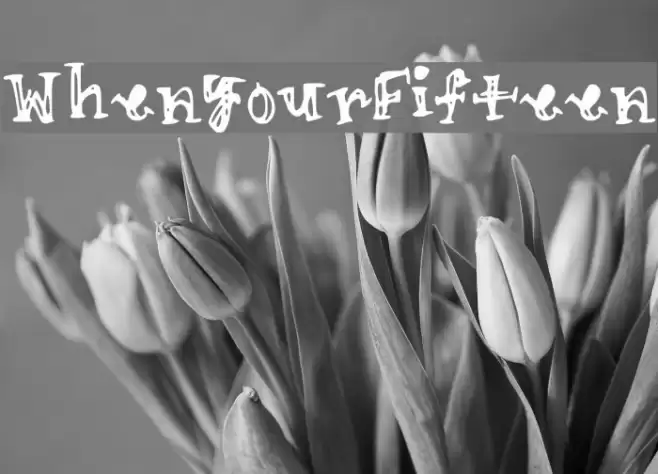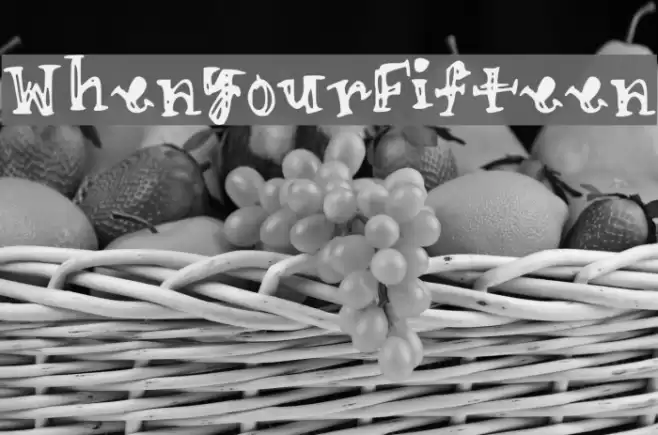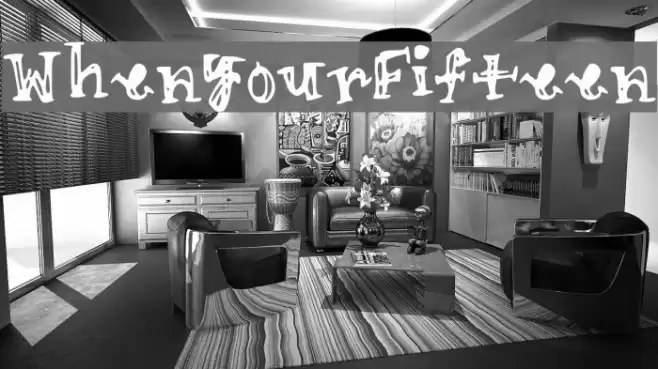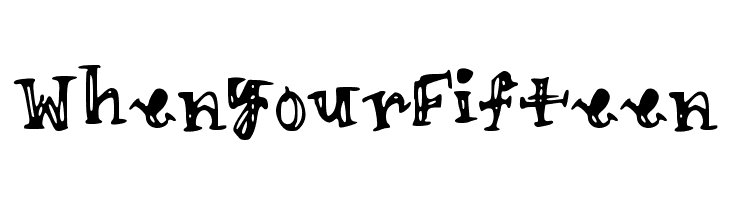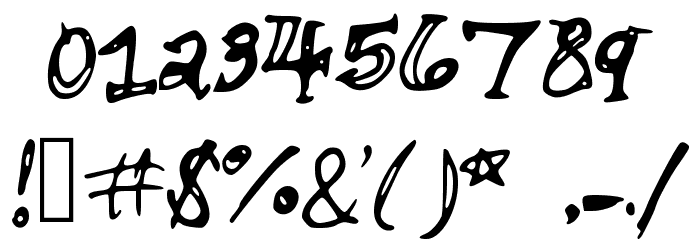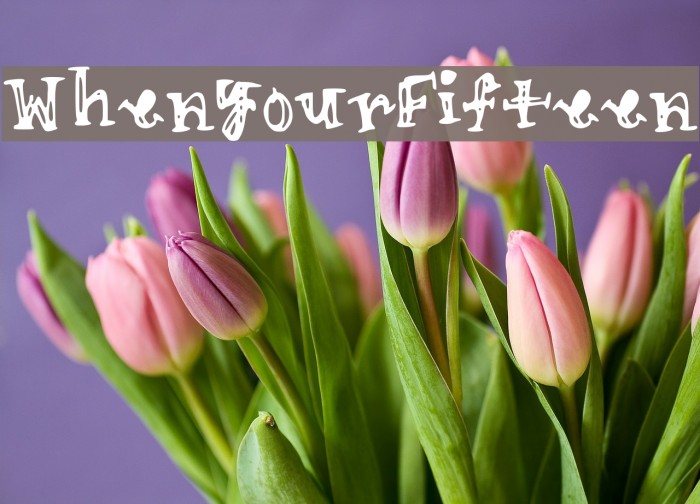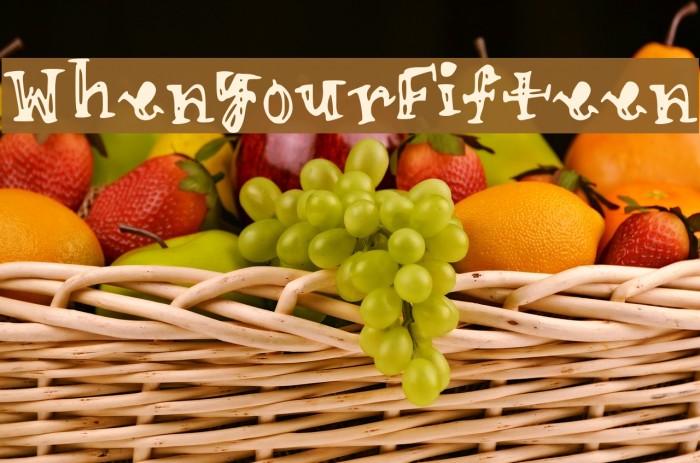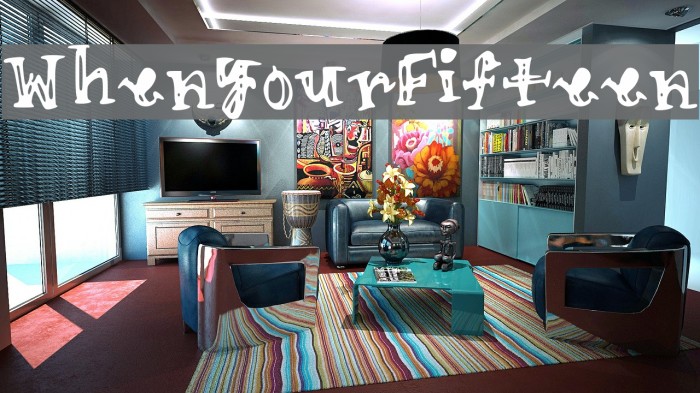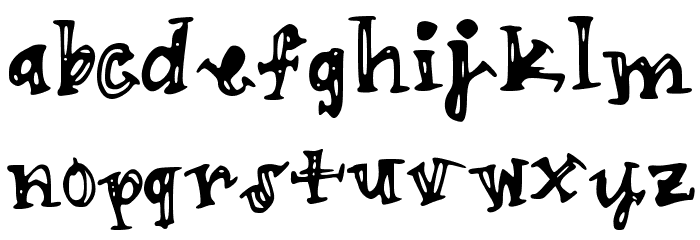
WhenYourFifteen Font
WhenYourFifteen Description
This font features a playful and whimsical design, characterized by irregular and quirky letterforms that give it a hand-drawn appearance. The uppercase letters are bold and dynamic, with varying stroke thicknesses and unique decorative elements, such as dots and curves, that add to its charm. The lowercase letters maintain this playful style, with some letters featuring exaggerated loops and swirls. The numbers are equally distinctive, with a bold presence and creative flair. Special characters are designed to match the overall aesthetic, ensuring a cohesive look. This font is ideal for projects that require a fun and informal touch, making it suitable for children's books, playful branding, and creative posters.
A playful, whimsical font with irregular, hand-drawn letterforms and decorative elements from Uncategorized fonts.
- Proposed Projects: Children's books, playful branding, creative posters, informal invitations.
- Overall Style: Playful, Whimsical